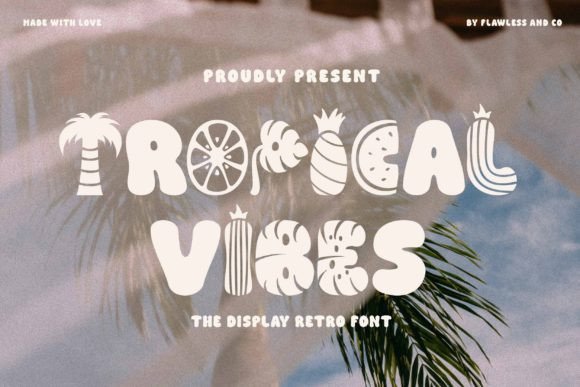
Prepare to be mesmerized by “Tropical Vibes,� a delightful display retro font that will transport you to a bygone era of golden sunshine, palm-fringed beaches, and carefree summer days. Its retro allure and bold character infuse your designs with a captivating nostalgia, making it the perfect choice for evoking memories of simpler times and capturing the essence of vintage vibes.
“Tropical Vibes� rekindles the spirit of the past, lending an authentic touch to your creative endeavors. Its charming aesthetic adds a touch of whimsy and playfulness, promising to leave an unforgettable impression on your audience. Whether you're crafting social media posts, designing eye-catching logos, or creating captivating marketing materials, “Tropical Vibes� is the perfect font to evoke a sense of nostalgia and timeless appeal.
With “Tropical Vibes,� you'll unlock a world of creative possibilities and transport your designs to a sun-drenched paradise. Its versatility extends across a wide range of projects, allowing you to bring your vision to life and make a lasting impact. Unleash your creativity and experience the magic of “Tropical Vibes� today!